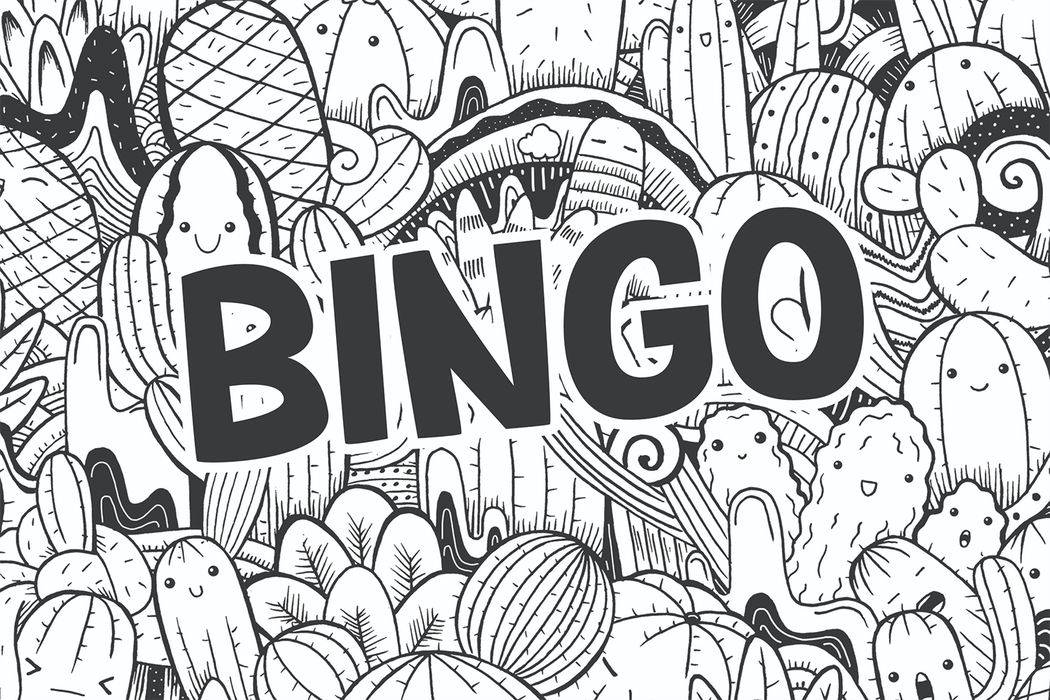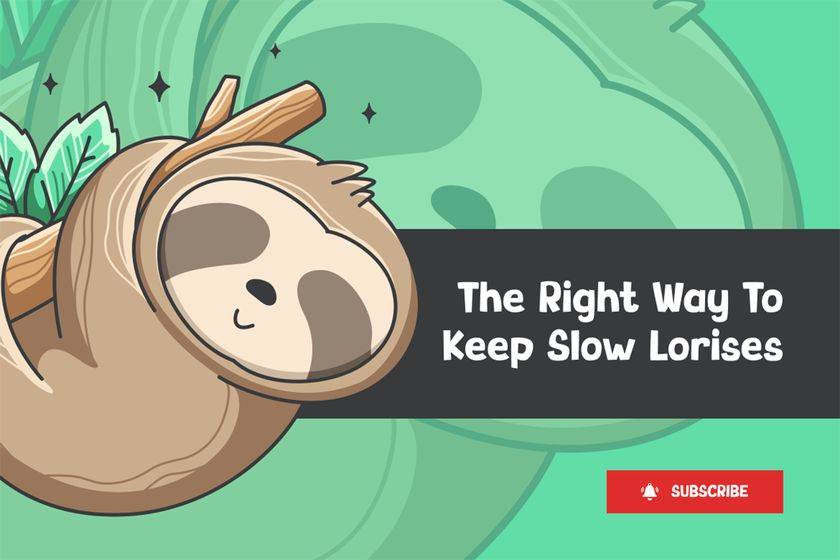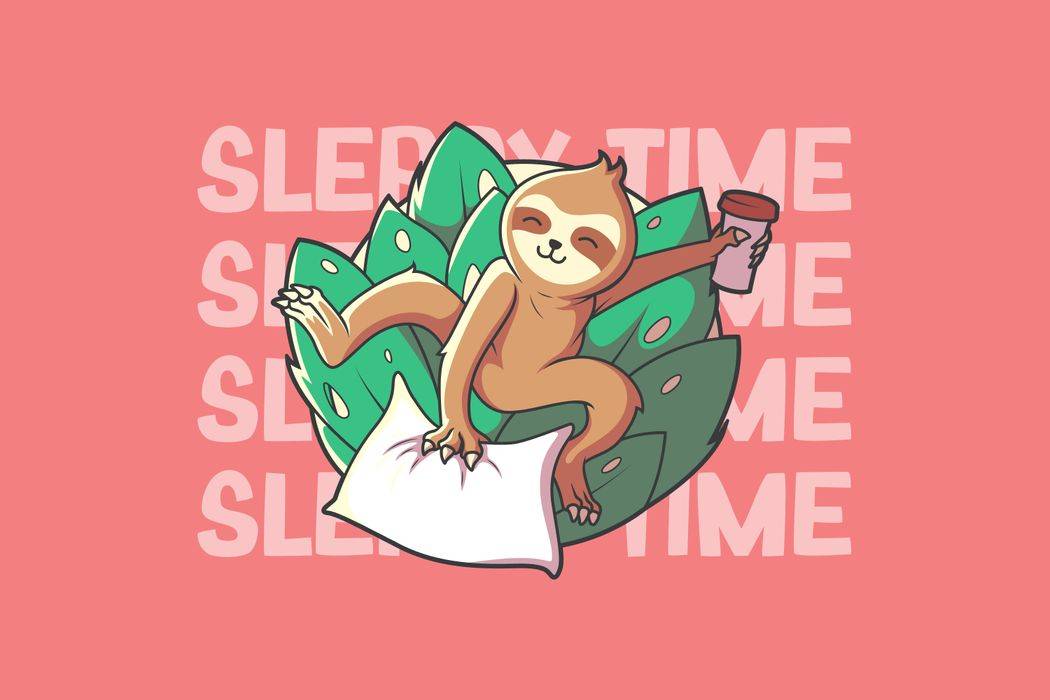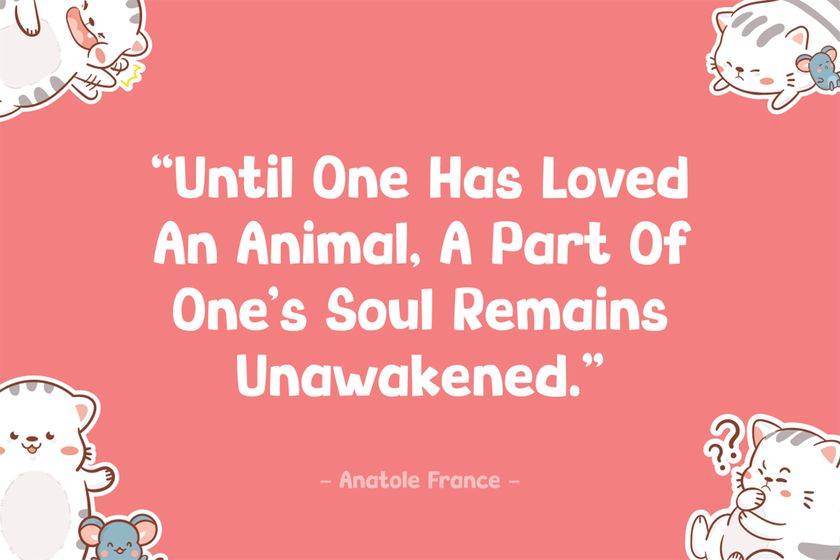
Bingo is a bold, playful sans serif font with a lively, slightly irregular character shape that adds a fun and friendly feel. Its chunky weight and quirky letterforms make it ideal for eye-catching headlines, children’s materials, or casual branding where a warm, inviting personality is desired. This font works best in designs needing a cheerful, approachable vibe rather than formal or highly structured text.
Bingo Font
About Bingo Font